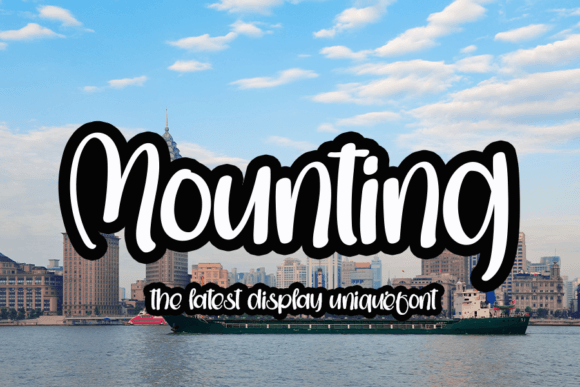
Dive into the realm of timeless elegance with Mounting Font, a display font family that exudes sophistication and charm. Inspired by the enduring allure of classic calligraphy, Mounting Font transports you to an era of grace and refinement. With its meticulously crafted letterforms and captivating curves, this font family is poised to elevate your design projects to new heights of grandeur.
Experience the allure of Mounting Font, a display font family that embodies the essence of modern calligraphy. Its meticulously crafted letterforms and elegant curves instill a sense of timeless sophistication in any design. Whether you're crafting logos, branding materials, invitations, or social media graphics, Mounting Font elevates your creations with an air of distinction.
Immerse yourself in the world of Mounting Font, a display font family that emanates elegance and grace. Its meticulously crafted letterforms and sweeping curves pay homage to the timeless beauty of calligraphy, adding a touch of refinement to your design endeavors. From wedding invitations to branding projects, Mounting Font lends an aura of sophistication that captivates and inspires.
Unleash the power of Mounting Font, a display font family that exudes timeless charm and contemporary flair. Its meticulously crafted letterforms and elegant curves infuse your designs with a touch of sophistication. Whether you're creating logos, invitations, or branding materials, Mounting Font elevates your work with an air of distinction. Experience the allure of a font family that embodies the essence of modern calligraphy.